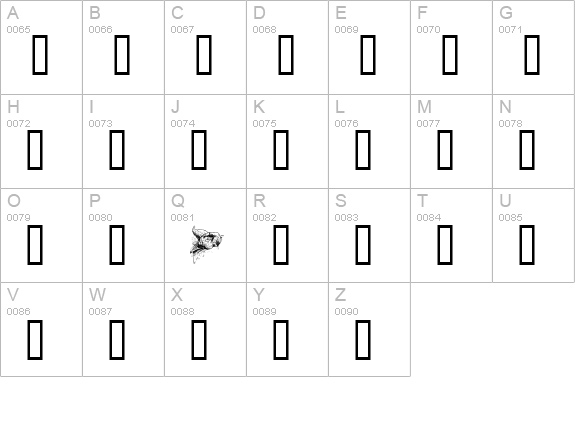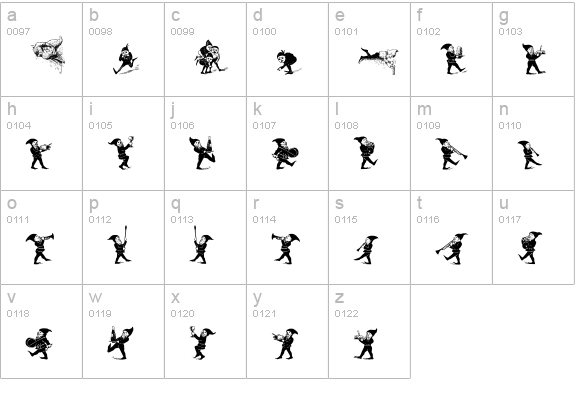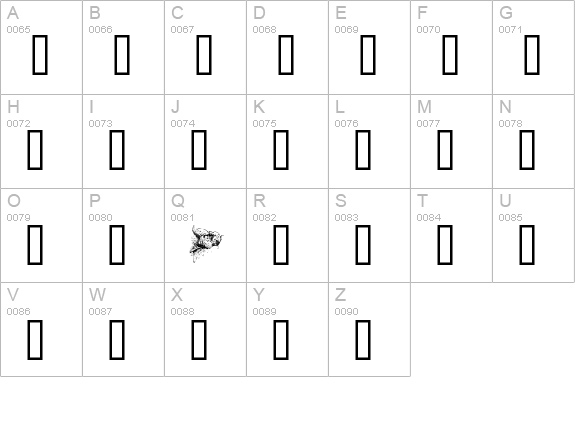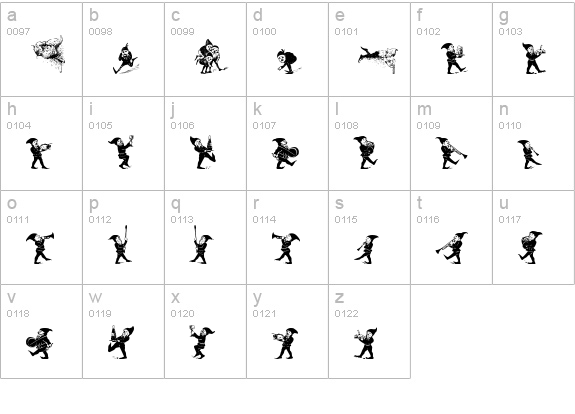
Gnomes Font Details
Introducing Gnomes font - a whimsical and enchanting typeface that is sure to add a touch of magic to your projects. With its playful and quirky design, Gnomes font is perfect for creating eye-catching headlines, invitations, posters, and more. This unique font features charming gnomes-inspired characters that will bring a smile to your face. The best part? Gnomes font is completely free to download at FontsMarket.com. So go ahead and unleash your creativity with this delightful and charming font. Whether you're working on a project for children or simply want to add a touch of whimsy to your designs, Gnomes font is the perfect choice. Download it now and let the magic begin!